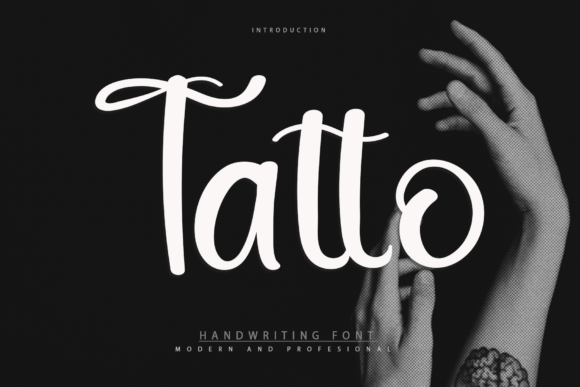
Tatto Font: A Natural Handwritten Font for Creative Projects
Are you looking for a unique and creative font to make your projects stand out? Look no further than Tatto Font, a natural handwritten font with an original, organic design. In this article, we’ll explore the features and benefits of Tatto Font, and how it can be used to enhance a variety of creative projects.
What is Tatto Font?
Tatto Font is a handwritten font designed to mimic the look and feel of natural, hand-written text. It’s perfect for creating invitations, birthday cards, celebrations, greeting cards, event banners, gift boxes, Cricut crafts, and silhouette projects. The font has an original, organic design that gives it a unique and personal touch.
Features of Tatto Font
- Natural Handwritten Design: Tatto Font has a natural, handwritten design that gives it a personal and unique touch.
- Original and Organic: The font has an original, organic design that sets it apart from other fonts.
- Versatile: Tatto Font can be used for a variety of creative projects, including invitations, birthday cards, celebrations, greeting cards, event banners, gift boxes, Cricut crafts, and silhouette projects.
- Easily Readable: The font is easily readable, making it perfect for creating text-based projects.
Benefits of Using Tatto Font
There are many benefits to using Tatto Font for your creative projects. Here are a few:
- Adds a Personal Touch: Tatto Font adds a personal touch to your projects, making them stand out from the crowd.
- Versatile: Tatto Font can be used for a variety of projects, making it a great addition to your font library.
- Unique Design: The font’s unique design makes it perfect for creating one-of-a-kind projects.
Project Ideas Using Tatto Font
Tatto Font is perfect for a variety of creative projects. Here are a few ideas to get you started:
- Invitations: Use Tatto Font to create unique and personalized invitations for parties, weddings, and other special events.
- Birthday Cards: Create handmade birthday cards using Tatto Font.
- Event Banners: Use Tatto Font to create eye-catching event banners for parties, weddings, and other special events.
- Gift Boxes: Create personalized gift boxes using Tatto Font.
- Cricut Crafts: Use Tatto Font to create custom Cricut crafts, such as vinyl decals, iron-on designs, and paper crafts.
- Silhouette Projects: Use Tatto Font to create custom silhouette projects, such as vinyl decals, iron-on designs, and paper crafts.
Tips and Tricks for Using Tatto Font
Here are a few tips and tricks for using Tatto Font:
- Experiment with Different Sizes: Experiment with different font sizes to find the perfect size for your project.
- Combine with Other Fonts: Combine Tatto Font with other fonts to create a unique and interesting design.
- Use in Combination with Images: Use Tatto Font in combination with images to create a visually appealing design.
- Pay Attention to Spacing: Pay attention to the spacing between letters and words to ensure that your text is easily readable.
Tatto Font is a natural handwritten font with an original, organic design. It’s perfect for creating invitations, birthday cards, celebrations, greeting cards, event banners, gift boxes, Cricut crafts, and silhouette projects. With its unique design and versatility, Tatto Font is a great addition to any font library.
- What is Tatto Font?: Tatto Font is a natural handwritten font with an original, organic design.
- What can I use Tatto Font for?: Tatto Font can be used for a variety of creative projects, including invitations, birthday cards, celebrations, greeting cards, event banners, gift boxes, Cricut crafts, and silhouette projects.
- Can I combine Tatto Font with other fonts?: Yes, you can combine Tatto Font with other fonts to create a unique and interesting design.